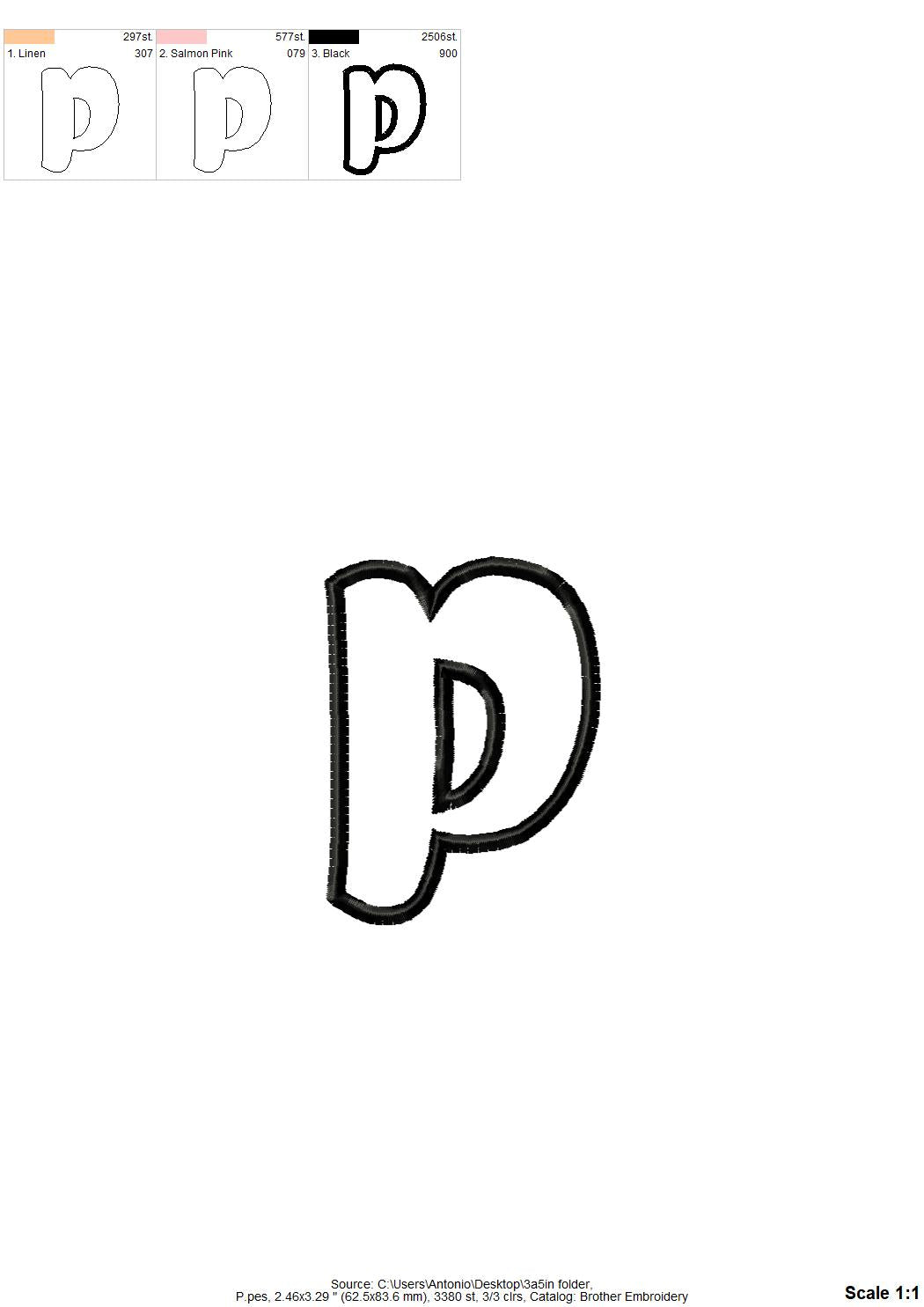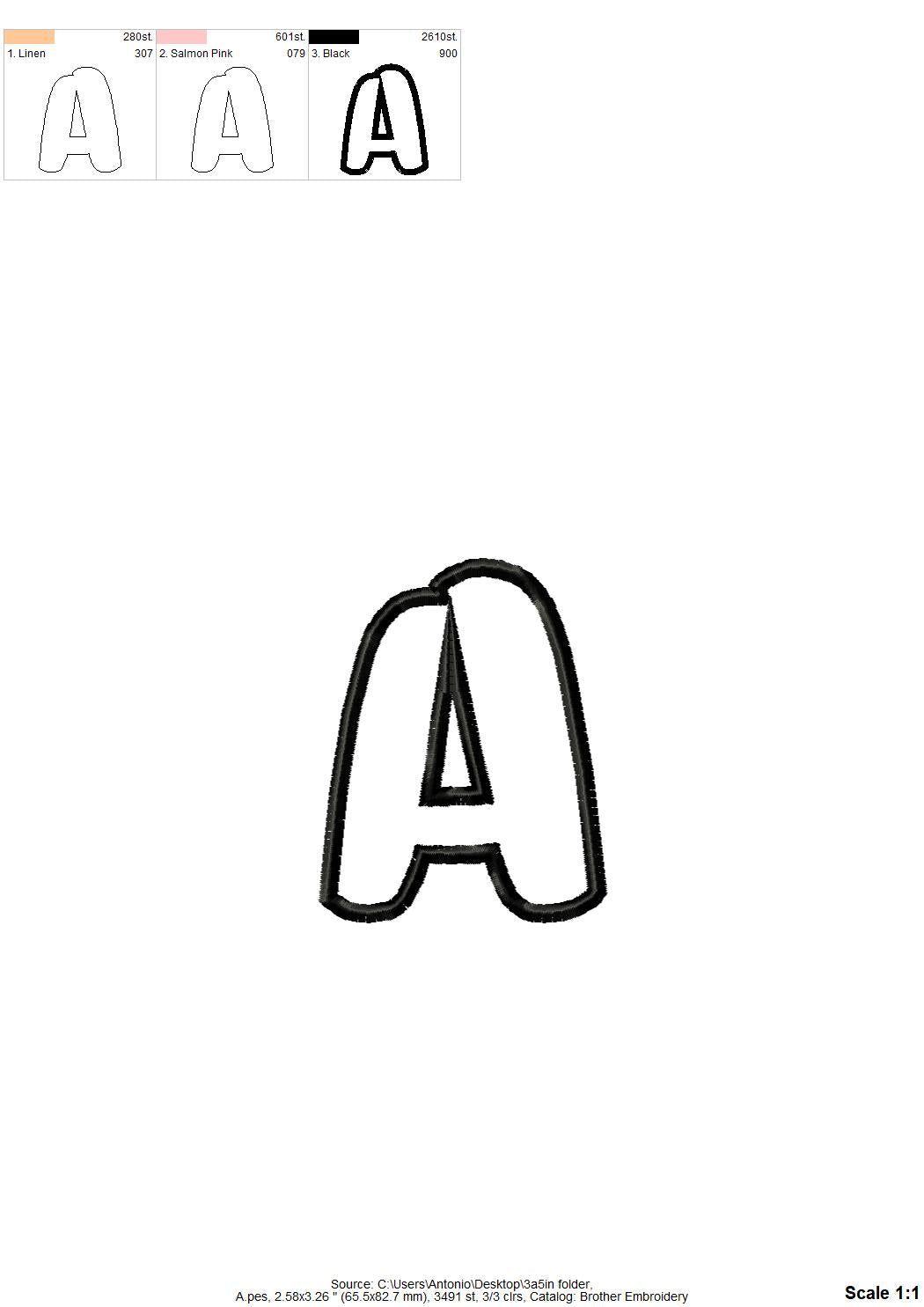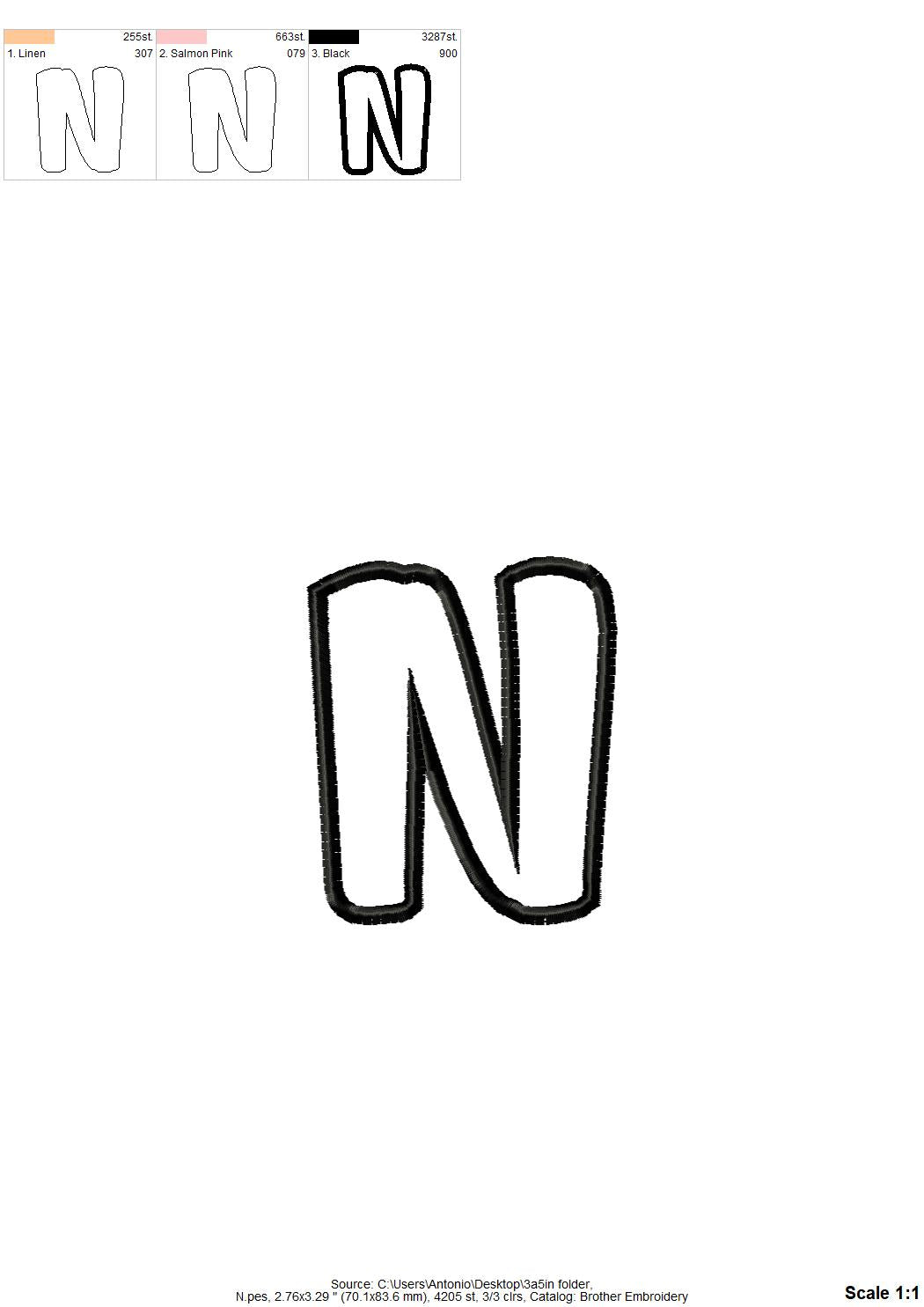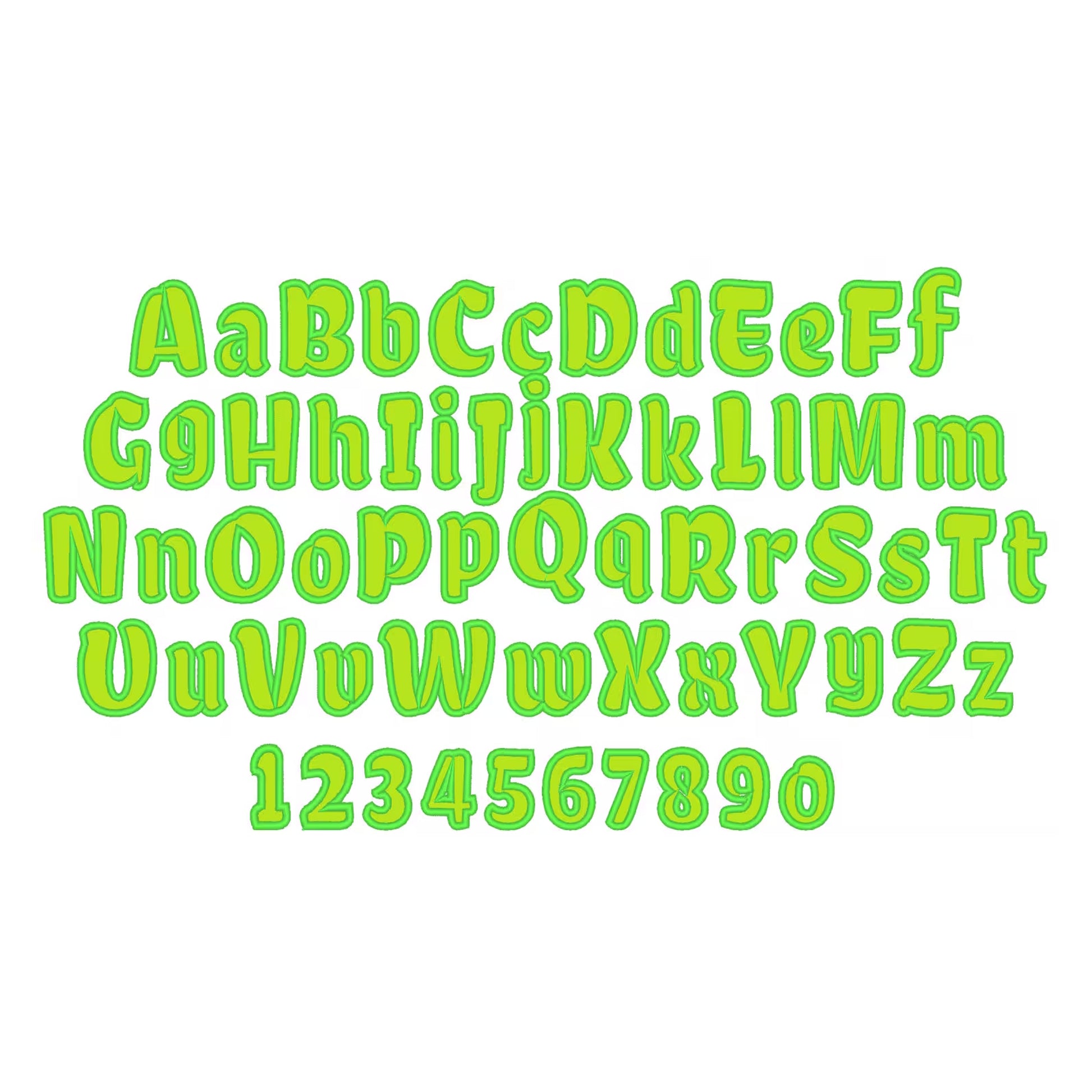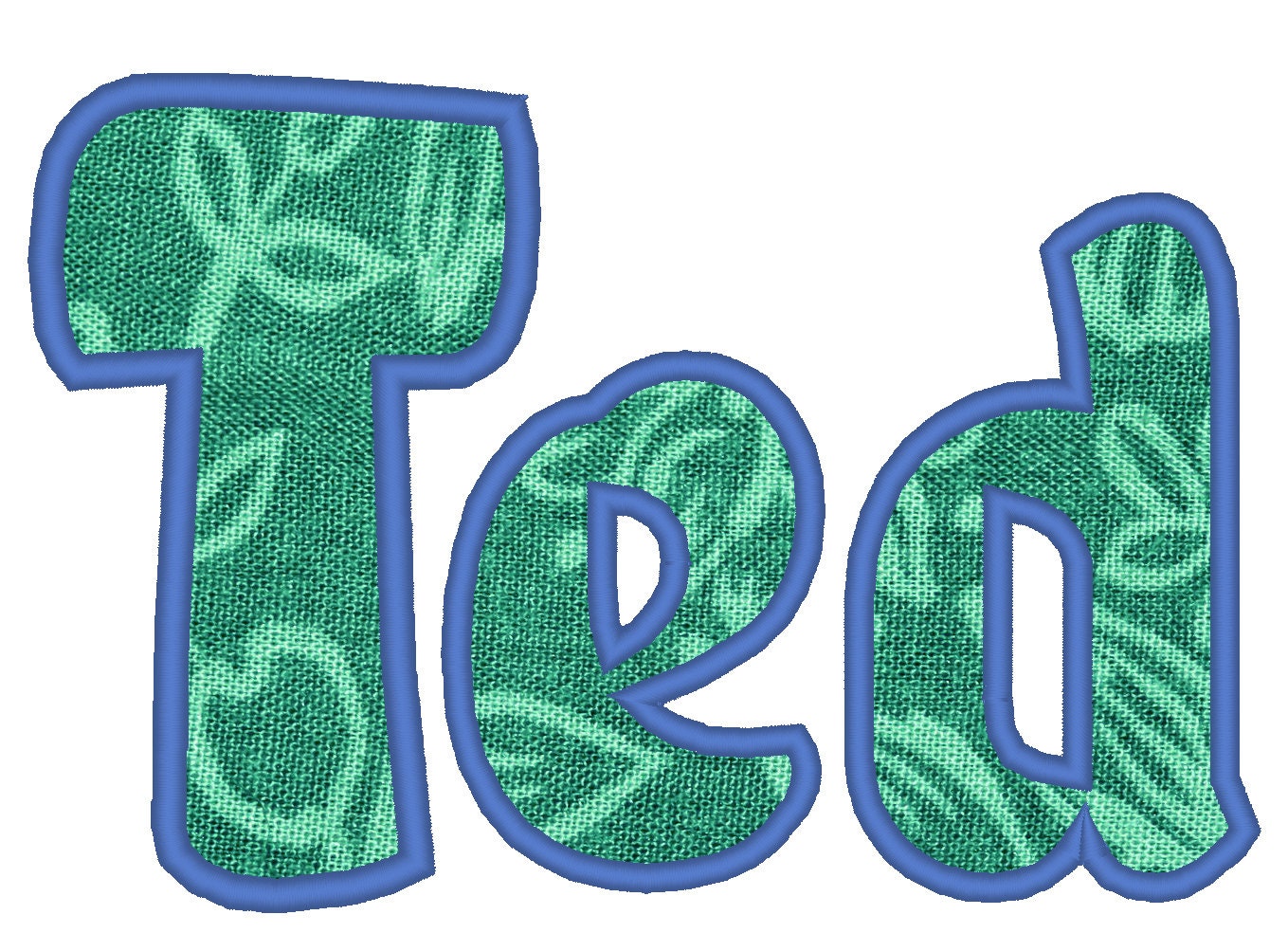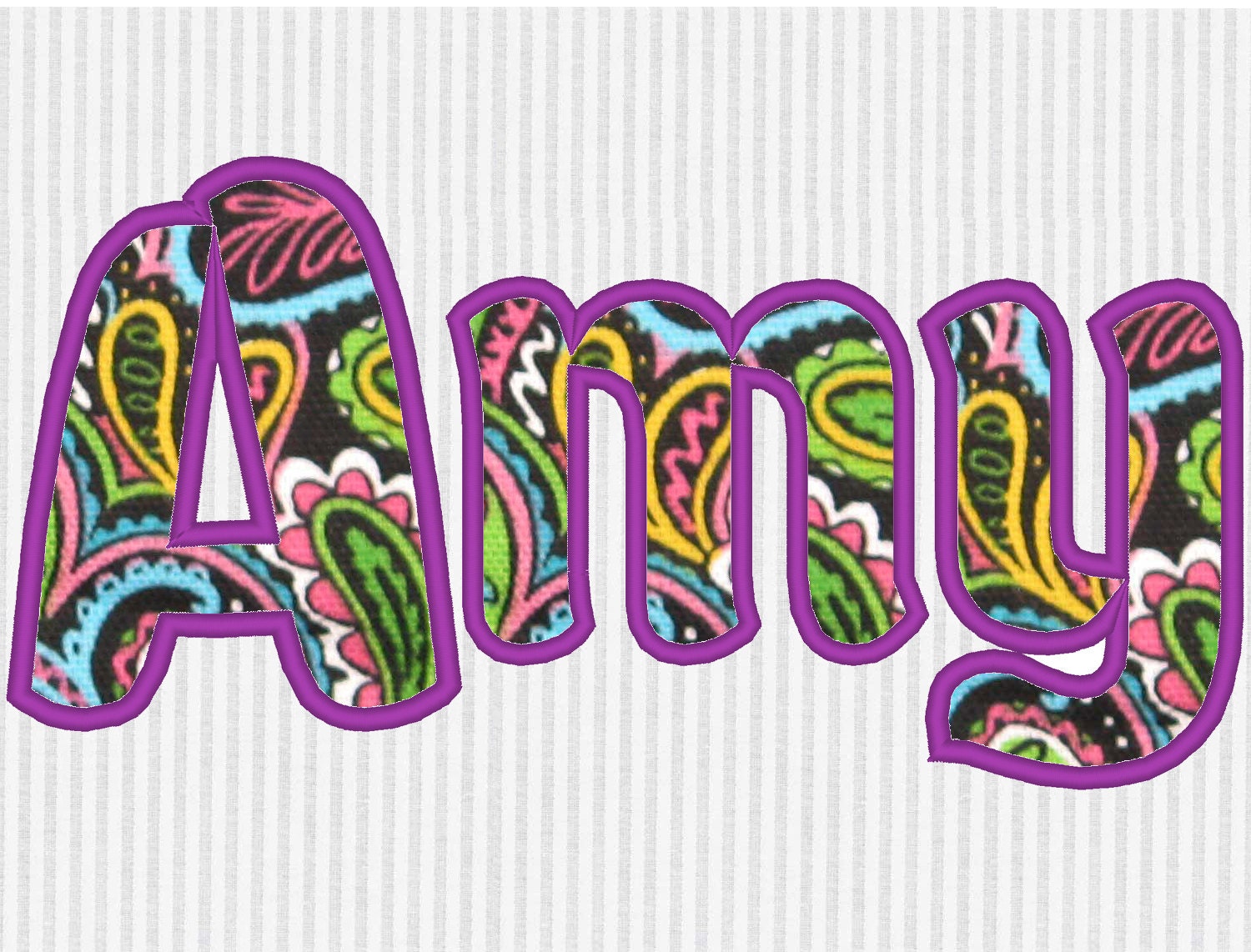
Monogram Applique Font Amy
Or click to open the linkAn applique monogram font for kids' names and initials. Great on shirts, pillows, blankets and baby gifts.
The letters come in six sizes: 2, 2.5, 3, 3.5, 4 and 5 inches. Every letter is stitched as an applique. Includes uppercase and lowercase letters A to Z and numbers 0 to 9.
- Applique monogram font
- Uppercase and lowercase letters, numbers 0 to 9
- 6 sizes, 2 to 5 in